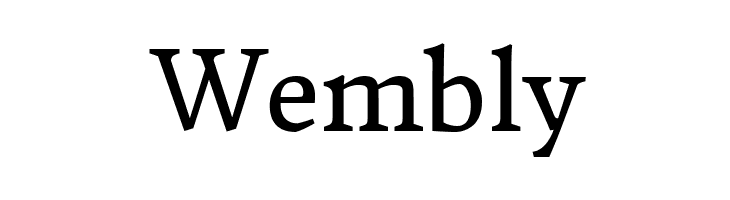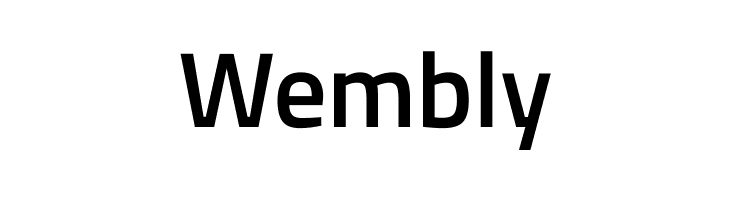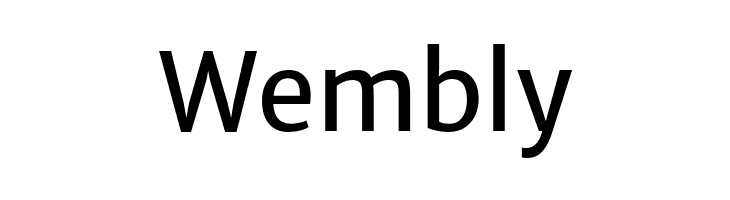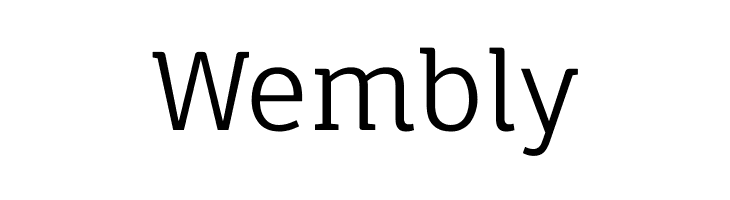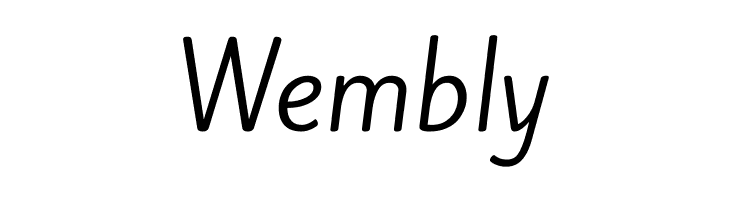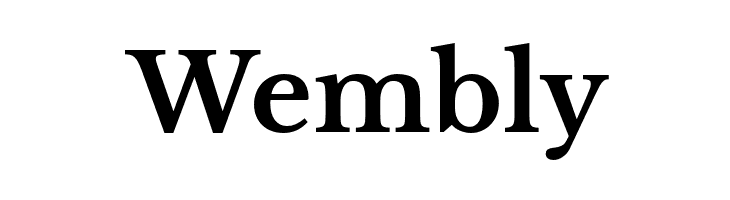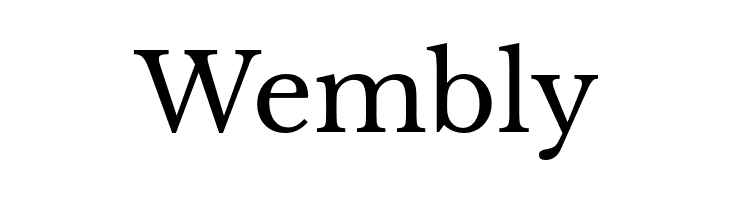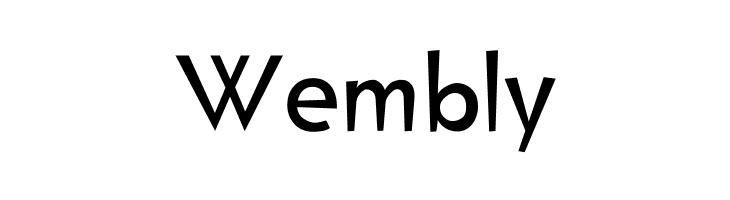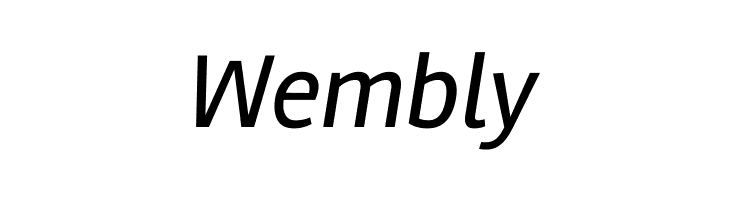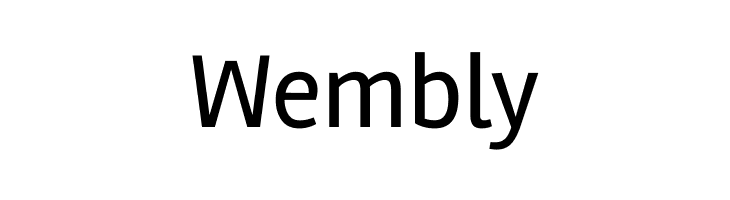
• Alef Regular
A clean, modern sans-serif typeface with balanced spacing and consistent stroke width.
• Donegal One
A classic serif font with a modern touch, featuring elegant curves and balanced proportions.
• Anaheim Regular
• Titillium WebSemiBold
A modern, geometric sans-serif font with balanced proportions and medium contrast.
• Titillium Web
A modern, geometric sans-serif font with balanced proportions and medium contrast.
• Merriweather Sans Regular
A modern sans-serif font with balanced proportions and open forms for optimal readability.
• Merriweather Sans Bold
A bold, modern sans-serif font with excellent legibility and balance.
• Fauna One
A modern serif font with elegant, well-proportioned characters and balanced strokes.
• Kite One
A modern, rounded sans-serif font with a clean and balanced design.
• LibreBaskerville-Bold
A bold, classic serif typeface with strong, elegant serifs and balanced proportions.
• LibreBaskerville-Regular
A classic serif typeface with elegant serifs and balanced stroke contrast.
• Masb
• Rambla Italic
A modern, italic font with clean lines and balanced proportions.
• Rambla
A modern sans-serif font with balanced proportions and smooth curves.
• Capriola Regular
A modern sans-serif font with smooth curves and balanced proportions.
• JacquesFrancois-Regular
A classic serif typeface with elegant details and balanced proportions.
• BrunoAce-Regular
• Discreet Regular
A modern sans-serif font with rounded edges and balanced spacing.
• EtharnigSc
• Carved Rock Regular
A clean, modern font with balanced proportions and excellent readability.
• Nikwasi
• Gravity-BookItalic
• Edmundsbury Serif Regular
• Advanced Sans Serif 7